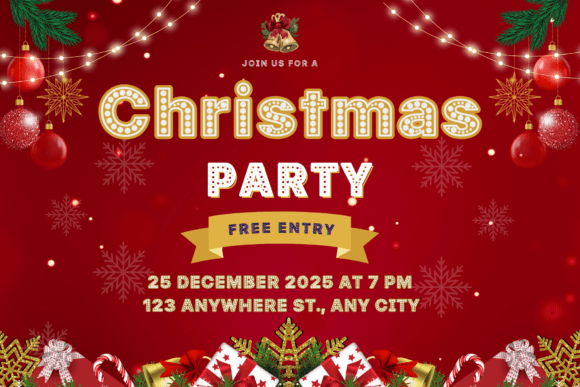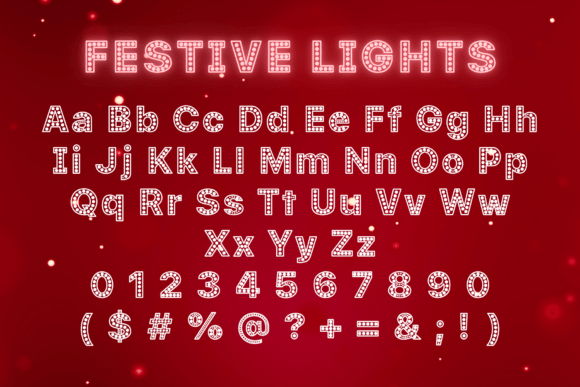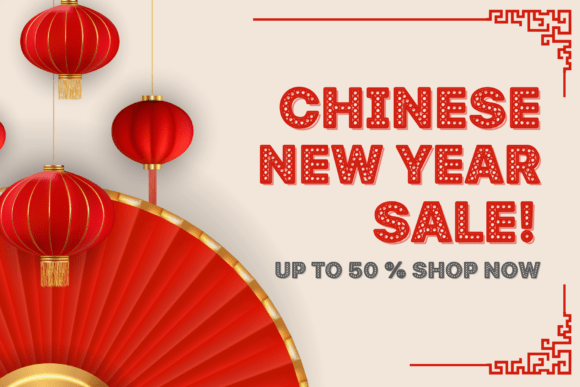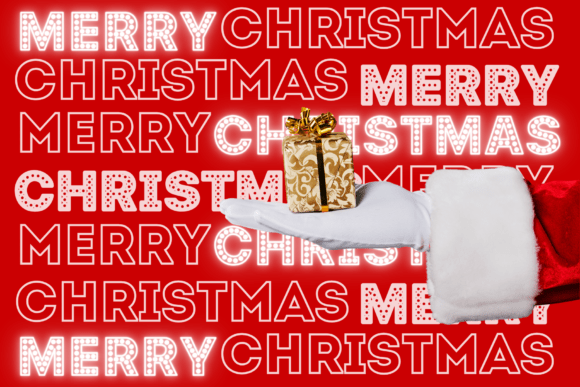
Bringing Festive Cheer to Your Designs with Festive Lights Font
It’s that time of the year again – the season of joy, celebration, and endless design projects. I still remember the year I was tasked with creating a Christmas-themed poster for a local event, only to find myself stuck on the perfect font. The design was almost complete, but something was missing. That’s when I stumbled upon the Festive Lights font, and it instantly brought my design to life. If you’re a designer, crafter, or creative hobbyist looking to add a touch of festive magic to your projects, you’re in the right place.
A Festive Font that’s Sure to Delight
Festive Lights is a display font that embodies the spirit of classic marquee light signs. Each letter is adorned with glowing dot bulbs, creating a bright and joyful look perfect for seasonal designs. This font is ideal for adding a warm, celebratory atmosphere to your projects, whether it’s for Christmas, New Year, winter events, party invitations, greeting cards, gift tags, posters, social media posts, branding, or holiday decorations.
What I Love About Festive Lights Font
• Instantly recognizable and attention-grabbing: The bold outline style and decorative bulb details make your text stand out instantly.
• Perfect for seasonal designs: Festive Lights is specifically designed for holiday-themed projects, making it a great addition to your design arsenal.
• 🎉 Easy to use and customize: With OpenType features and glyphs, you can easily customize your text to fit your design needs.
• 💡 Nostalgic and retro charm: The font’s classic marquee light sign inspiration adds a touch of nostalgia and retro charm to your designs.
While Festive Lights is an amazing font, there are a few things to keep in mind:
• ⚠️ Legibility at small sizes: Due to the decorative nature of the font, it may not be suitable for small text sizes or body copy.
• 🤔 Limited use cases: While Festive Lights is perfect for seasonal designs, it may not be the best fit for more formal or professional projects.
The Story Behind Festive Lights Font
Festive Lights was inspired by the classic marquee light signs that adorn city streets during the holiday season. The font’s creator wanted to capture the magic and excitement of these signs and bring them to life in a digital format. With its bold outline style and decorative bulb details, Festive Lights is sure to add a touch of festive cheer to your designs.
What is Festive Lights font best used for? Festive Lights is perfect for holiday-themed designs, including Christmas, New Year, winter events, party invitations, greeting cards, gift tags, posters, social media posts, branding, and holiday decorations.